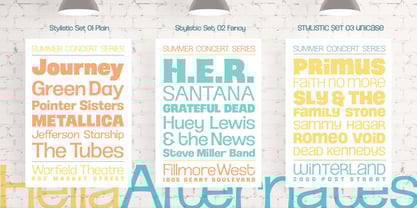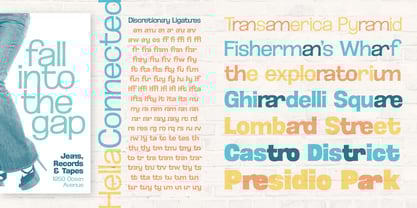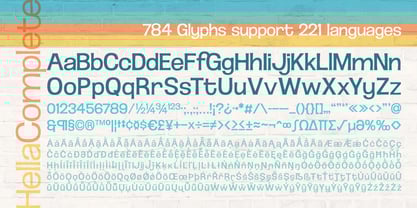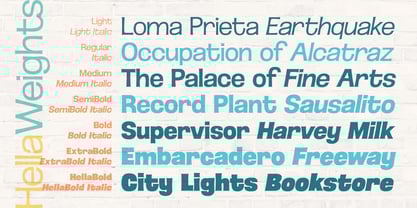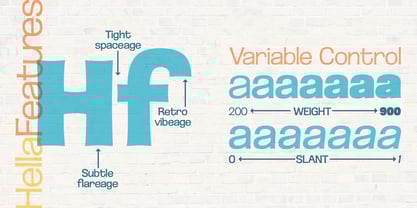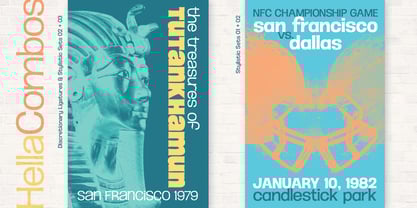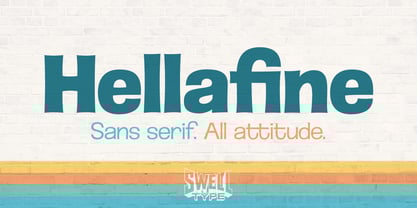
Hellafine
Die Schriftfamilie Hellafine wurde von John Roshell entworfen und von Swell Type veröffentlicht. Hellafine enthält 15 Stile und Familienpaketoptionen.
At first glance, Hellafine may look like that certain Swiss sans-serif font you know so well, with its subtle thick/thin contrast and squarish circles.
But no. This is the way we WISH that font looked. With tight spacing. With groovy, loopy fs and ts. With an UltraBold that's actually Ultra Bold.
Inspired by painted street signs in the San Francisco Bay Area in the '70s and '80s. Hellafine's letters look like they were painted three feet tall on a brick wall from memory, not while looking at a boring type spec book. The edges and ends have that lovely flaring sign painters use to make tight, sharp corners, and letters that are readable from across Market Street through pea-soup fog.
That ain't enough for ya? Hellafine has hella options:
• You want it more "normal" for the front of corporate headquarters? Fine, switch to Stylistic Set One.
• You want a little extra flair, like our sign painter took a bong hit to fight off a hangover? Hit up Set Two.
• You want an all-inclusive Unicase to let your freak flag fly? We got you with Set Three.
Whichever way you use it, Hellafine brings hella attitude.
Designer: John Roshell